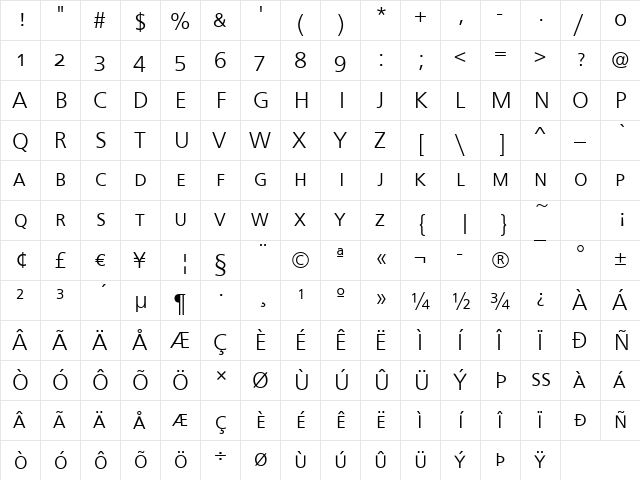
FrontPage-Caps-Light Regular
Design Context for FrontPage-Caps-Light Typeface
FrontPage-Caps-Light offers clean, dependable letterforms without strong stylistic allegiance, making it a practical choice for designers who need flexibility. The delicate stroke weight brings airiness and refinement to layouts.